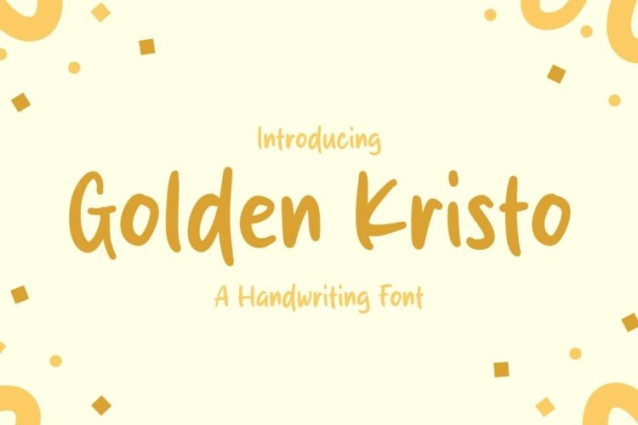
Golden Kristo Font
Golden Kristo Font is a simple and friendly handwritten font. Its natural and unique style makes it incredibly fitting to a large pool of designs. The only limit is your imagination!